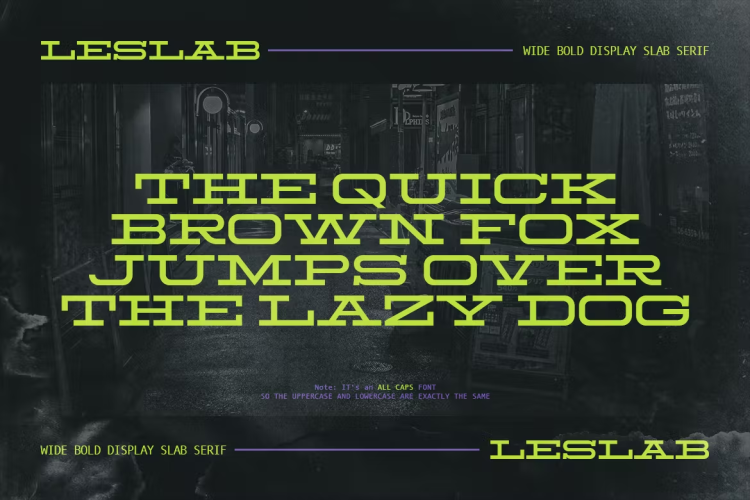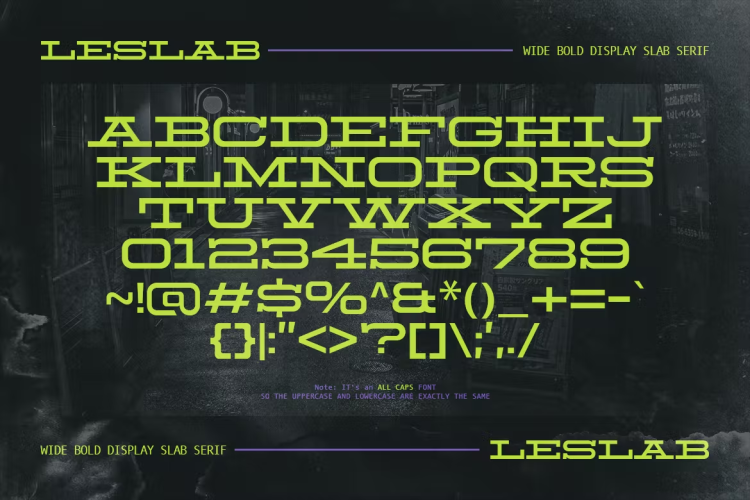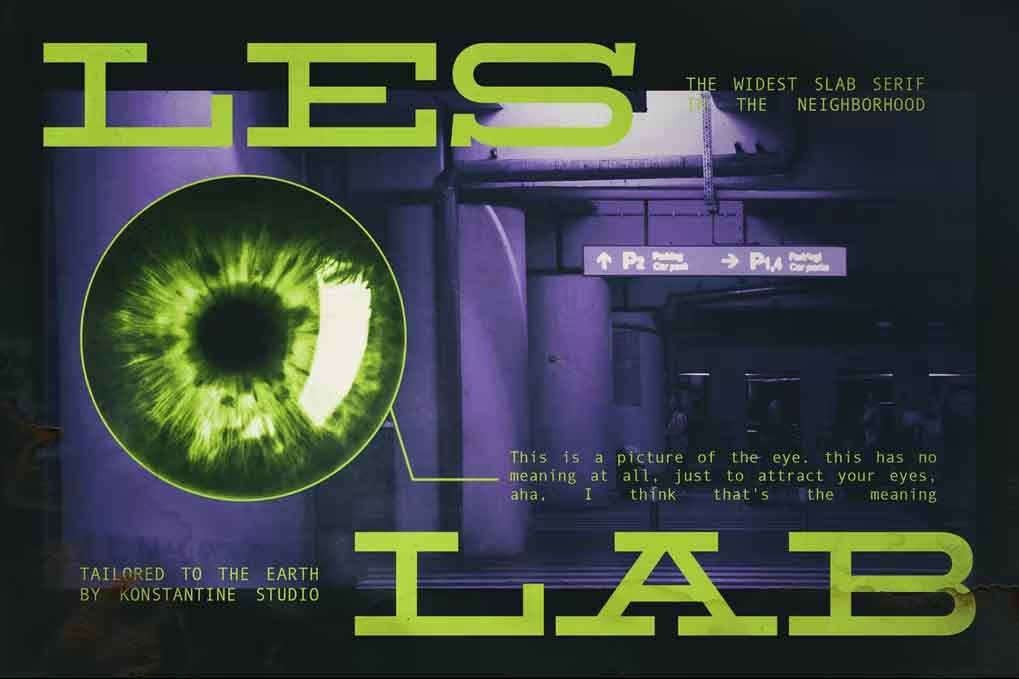
Leslab Font
Introducing LESLAB, a wide and bold display slab serif that we believe you can’t take your eyes off of it. Strong presence to scream your visuals louder than you did before.
Perfectly fit for logo, branding, poster, video editing, animation, fashion, streetwear, cosmetics, men’s wear, anything.
Where Leslab Font works best
Reports, white papers and book interiors hold the eye longer when the text face has real serifs; Leslab Font keeps that rhythm without looking old-fashioned.
Food, spirits and cosmetics brands lean on serif wordmarks to suggest age and care. Leslab Font gives that signal at wordmark size.
Set Leslab Font for the body of an award or a diploma and keep the recipient name in a script; the pairing is what makes a document feel official.
What kind of work does Leslab Font suit?
It sits in the Serif Fonts group and reads as bold, branding, display, serif. That makes it a candidate wherever those qualities help: headings, packaging, social graphics and brand work. Set it at the size you plan to use before deciding.